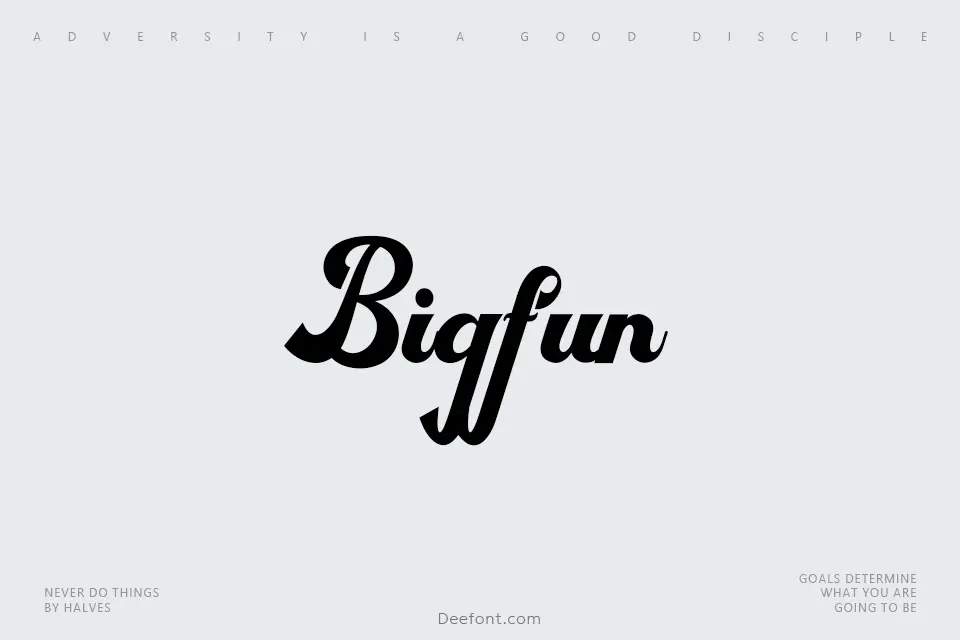
Bigfun Font
Bigfun is a vibrant, eye-catching script display typeface featuring chunky, rounded letterforms with a distinctly retro and playful character. Combining old school aesthetics with contemporary flair, this decorative font excels in poster design, holiday graphics, album covers, and attention-grabbing headlines. Its bold weight and decorative flourishes make it ideal for festive events, branding projects, and creative display applications where visual impact matters most.